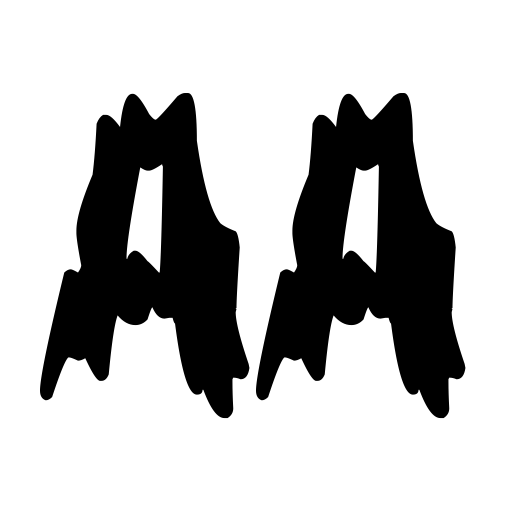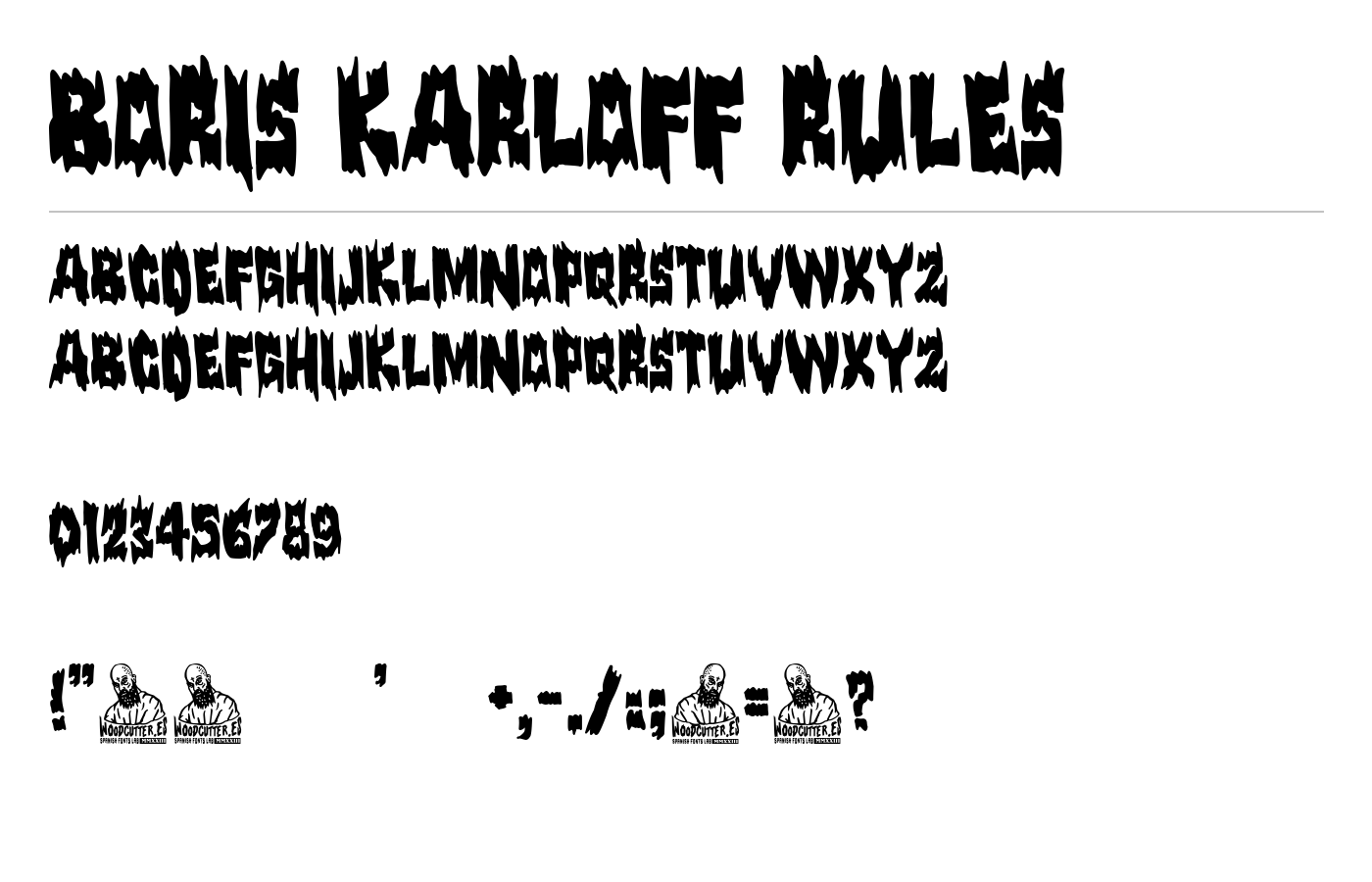
Boris Karloff Rules is a bold, decorative display font with a spooky and jagged silhouette, evoking a horror or Halloween theme. Its heavy weight and irregular, dripping edges give it a dramatic and playful personality, making it perfect for eye-catching headlines, posters, or themed event branding that requires a fun yet eerie vibe. This all-caps font works best in creative, expressive settings where a strong visual impact is needed rather than long body text.
Boris Karloff Rules Font
About Boris Karloff Rules Font